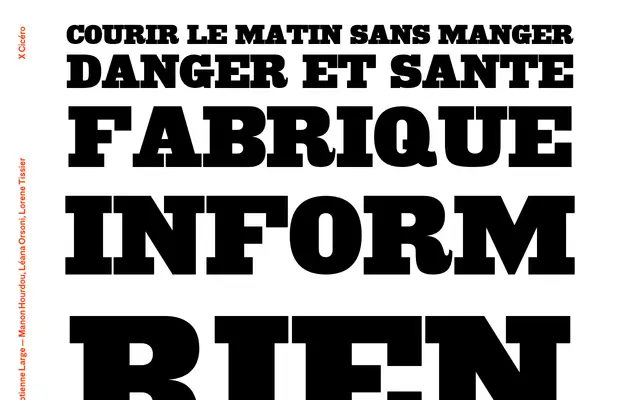
Egyptienne Large
A large-display slab serif from X Cicéro, the type foundry associated with ESAD Grenoble-Valence, taking its name from the French typographic tradition of Egyptienne classification.
Egyptienne Large draws on the French naming convention for slab serif typefaces and is pitched at display and poster scales. The specimen text — short, punchy French phrases set in heavy capitals — suggests a typeface built for large, assertive settings. Released through X Cicéro, the student and research foundry of ESAD Grenoble-Valence.
The name 'Egyptienne' is the French term for Egyptian or slab serif typefaces; the large-scale display specimens suggest a display-oriented slab serif.